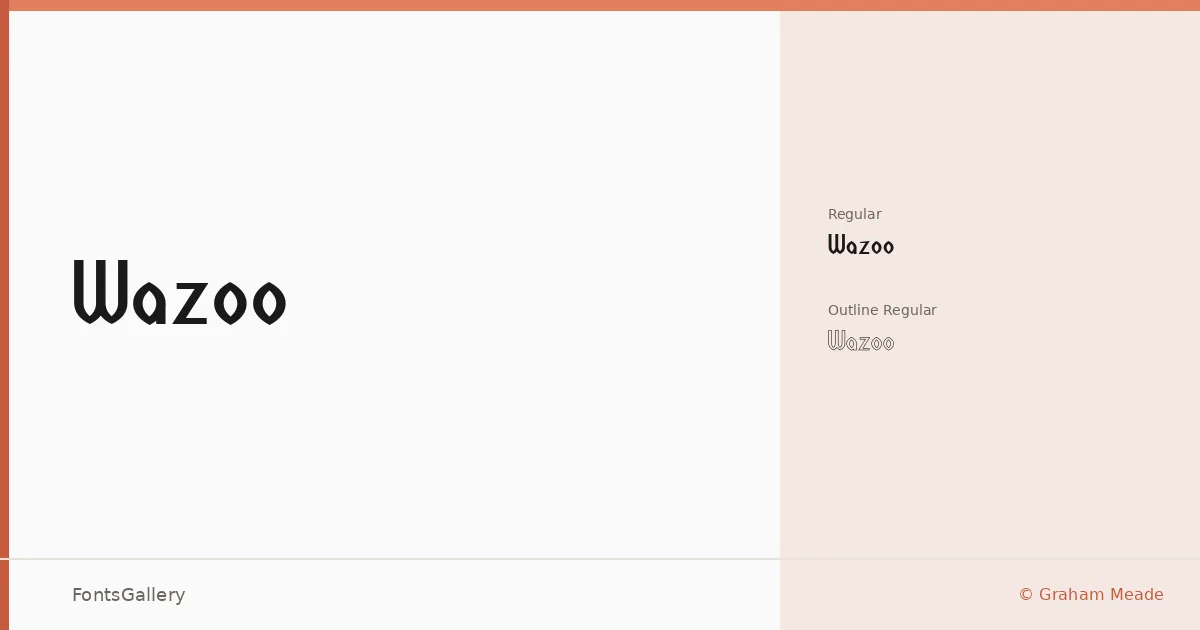
About Wazoo Font
There is a confident swagger to these letterforms — thick, punchy shapes that carry equal parts vintage fair and modern graphic energy. Graham Meade, whose broader catalog lives at apostrophiclab.com, drew this display face with two companion styles: a solid Regular and a stroked Outline Regular, both delivered as TTF files.
The family sits firmly in display territory, leaning into a mood that is bold and playful without losing its composure. The solid cut has real presence at large sizes, while the outline companion lets that same structure breathe — useful when you want structure without full visual weight. Together the two styles give a headline a built-in toolkit for layering or contrast, the kind of detail that makes poster and logo work feel considered rather than blunt.
The natural home for this family is anywhere type needs to announce itself: brand identities, event posters, logo lockups, and T-shirt graphics all suit the vintage-inflected boldness well. Coverage extends across Latin-script languages. For body copy or secondary text, it pairs well with the clean neutrality of Helvetica or Abrade, and sits comfortably alongside the editorial warmth of Canela, ABC Arizona, or (AH) Manal when a more refined contrast is the goal.